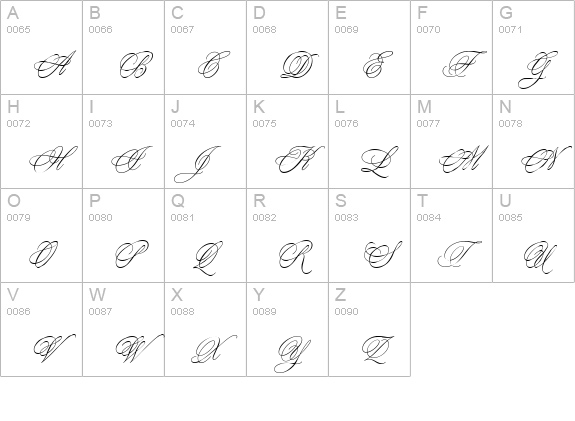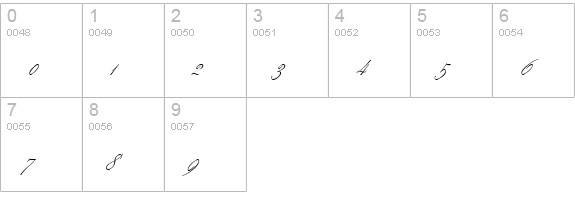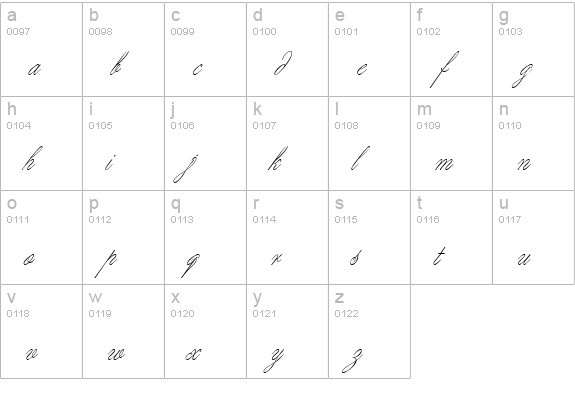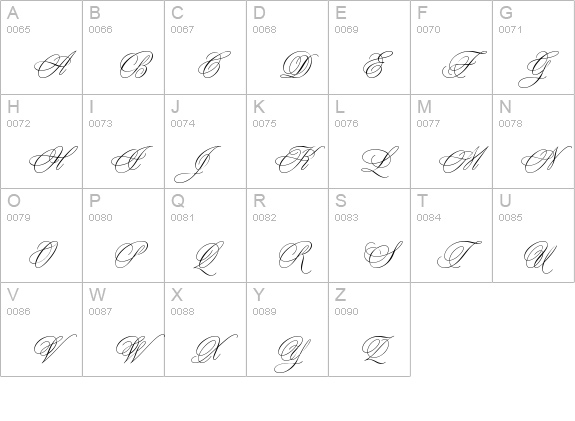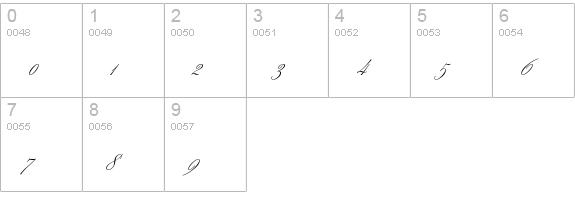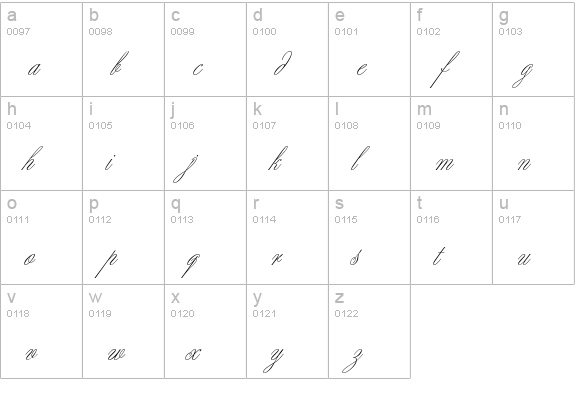
Margarita script Font Details
Introducing Margarita Script, a captivating and enchanting font that effortlessly adds a touch of elegance and sophistication to any design project. This stunning typeface combines the timeless beauty of traditional script fonts with a modern twist, making it perfect for a wide range of applications, from wedding invitations and branding materials to logos and packaging designs. With its delicate and fluid letterforms, Margarita Script exudes a sense of grace and charm, instantly capturing attention and leaving a lasting impression on viewers. Each letter is carefully crafted with intricate details and graceful curves, resulting in a truly unique and visually appealing typeface. One of the standout features of Margarita Script is its versatility. It seamlessly adapts to various design styles and contexts, effortlessly complementing both contemporary and classic aesthetics. Whether you're aiming for a romantic and dreamy atmosphere or a more refined and sophisticated look, this font has the ability to effortlessly elevate your designs to new heights. But what makes Margarita Script even more remarkable is the fact that it is freely available to download at FontsMarket.com. This means that you can easily incorporate this exquisite font into your projects without any hassle or cost. The accessibility of Margarita Script allows designers, artists, and enthusiasts alike to explore their creativity and bring their visions to life without any limitations. So why wait? Discover the endless possibilities that Margarita Script offers and infuse your designs with a touch of elegance and allure. Download this enchanting font today from FontsMarket.com and let your creativity soar to new heights.